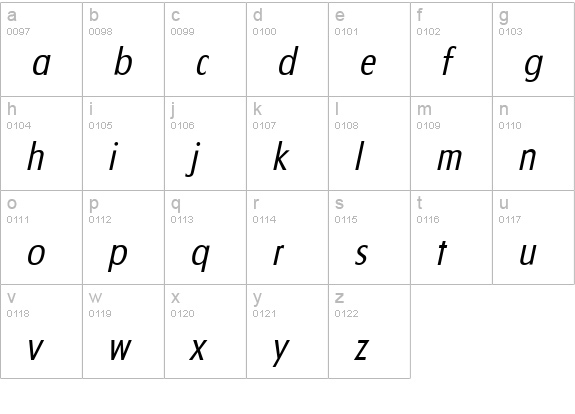
FloridaSerial-Light-Italic is a refined, elegant, italic variant in the FloridaSerial typeface family \xE2\x80\x94 well suited to elegant body text, refined sub-headings, and luxury branding.
FloridaSerial-Light-Italic font is a sleek and modern typeface that exudes elegance and sophistication. With its delicate and stylish design, this font is perfect for adding a touch of class to any project. The italicized style adds a sense of movement and flair, making it ideal for titles, headings, and elegant designs. Best of all, FloridaSerial-Light-Italic font is available for free download at FontsMarket.com. Whether you're working on a personal project or a professional design, this font is a versatile choice that will enhance your work with its refined aesthetic. Don't miss out on the opportunity to elevate your designs with this stunning typeface - download FloridaSerial-Light-Italic today!